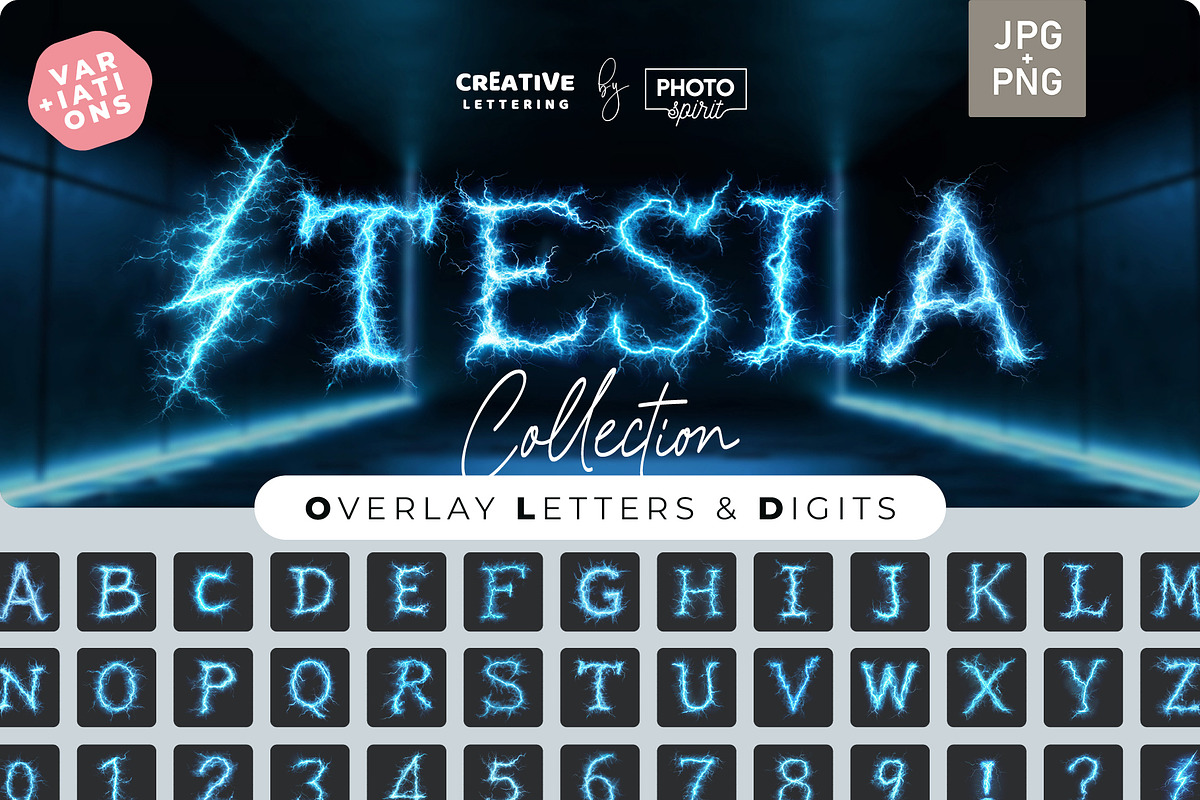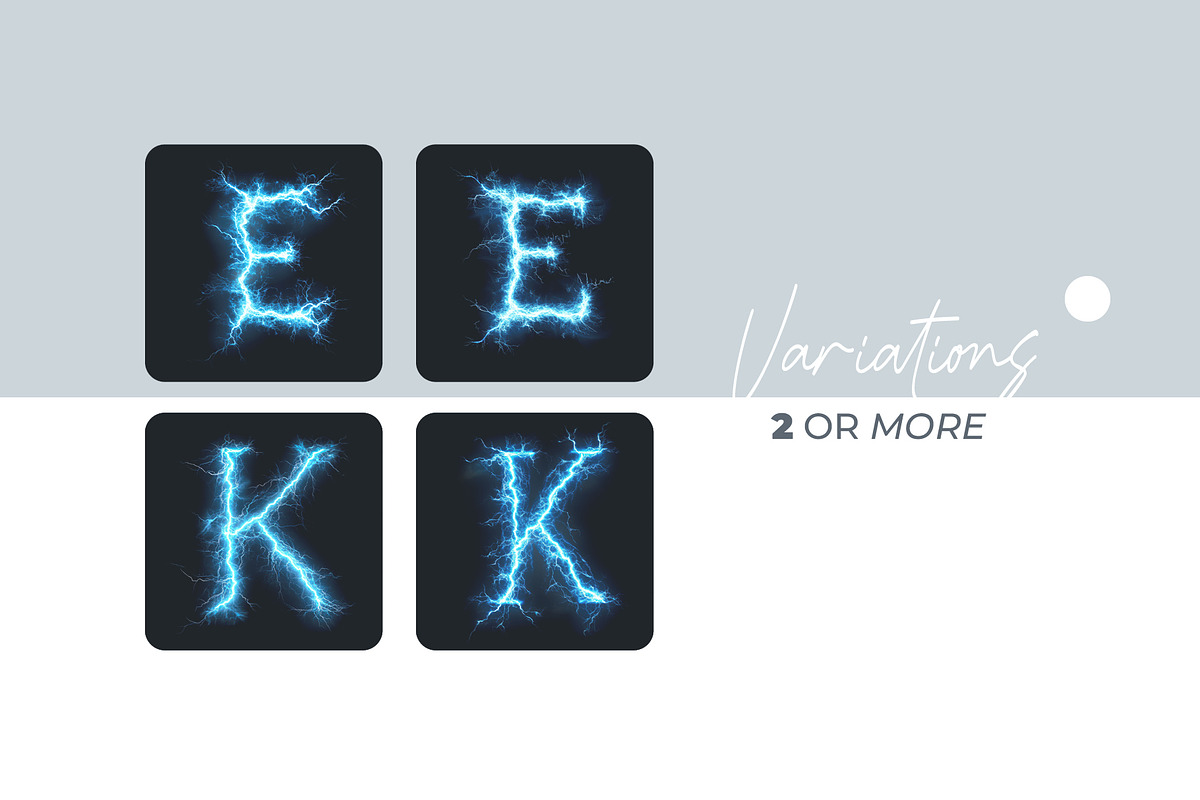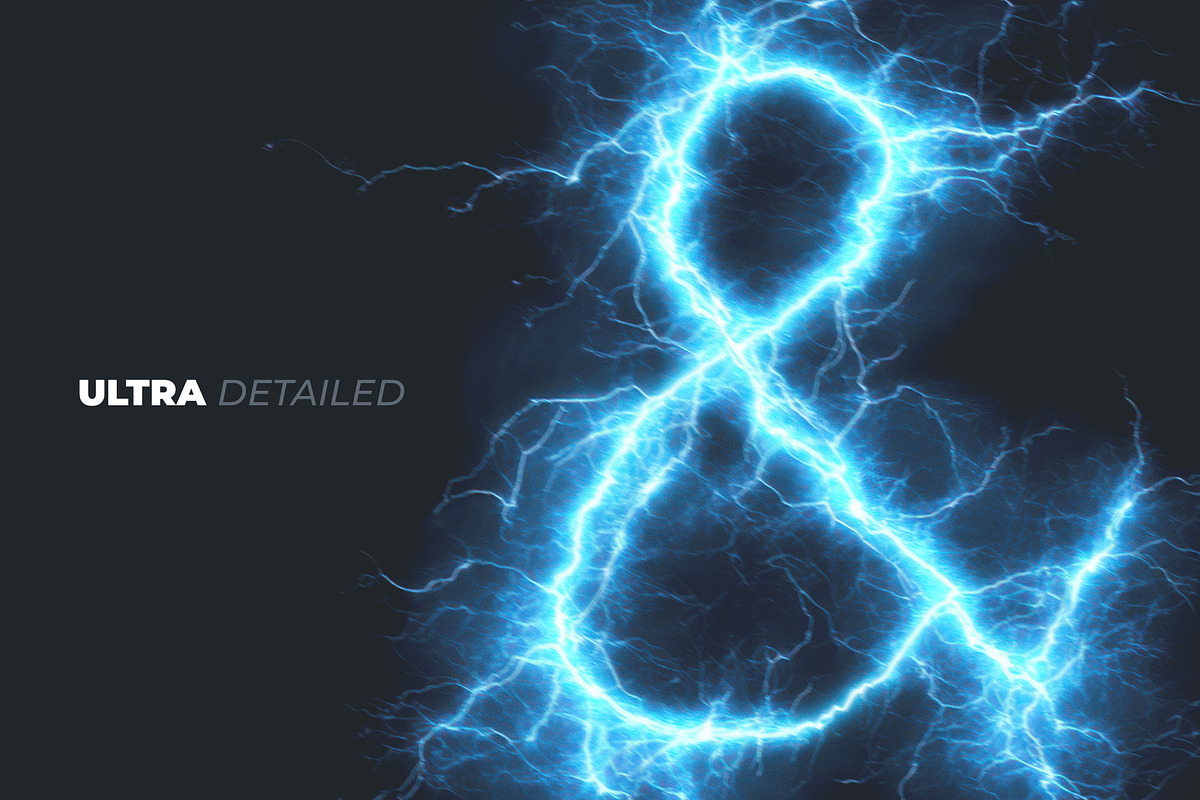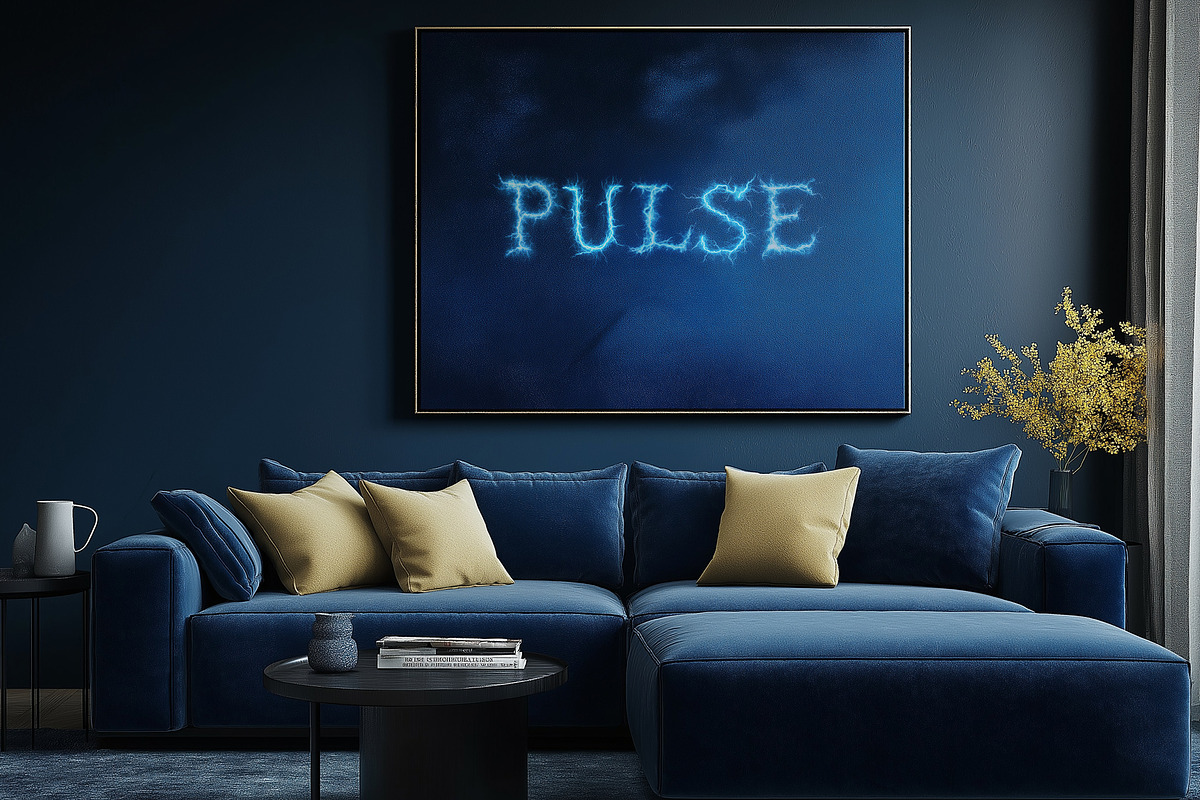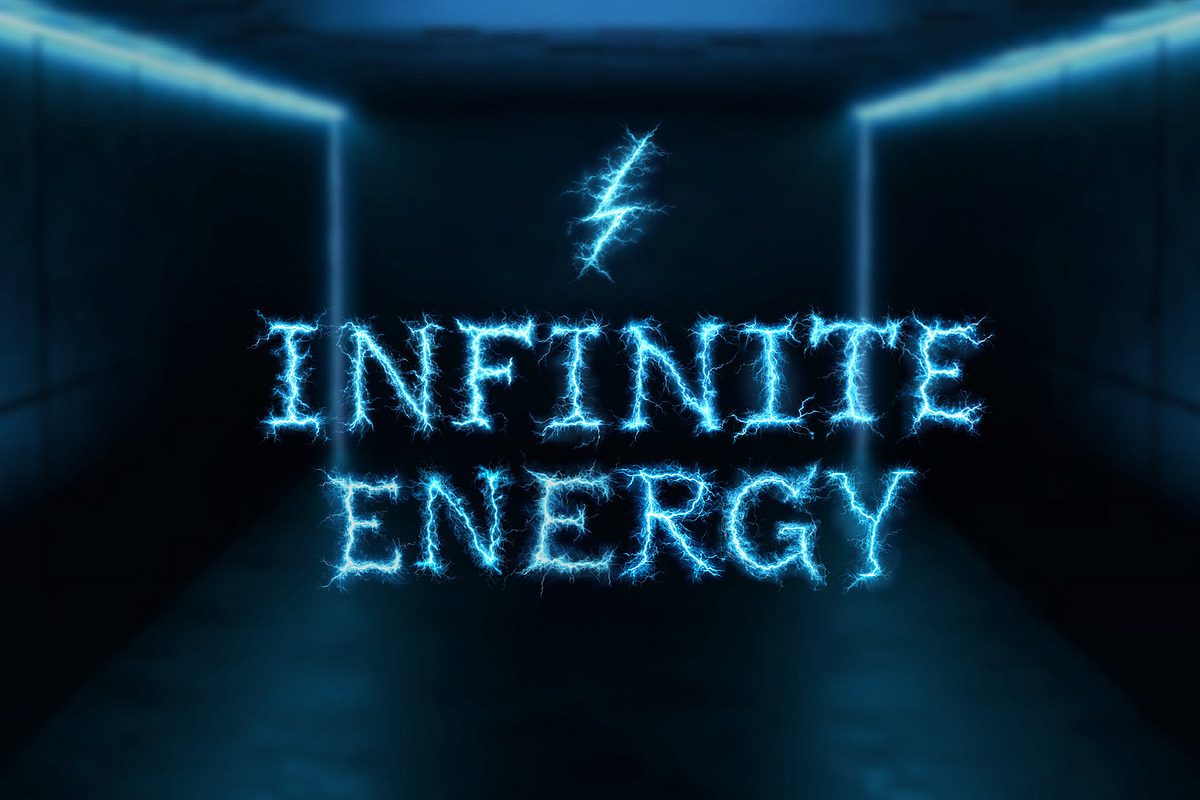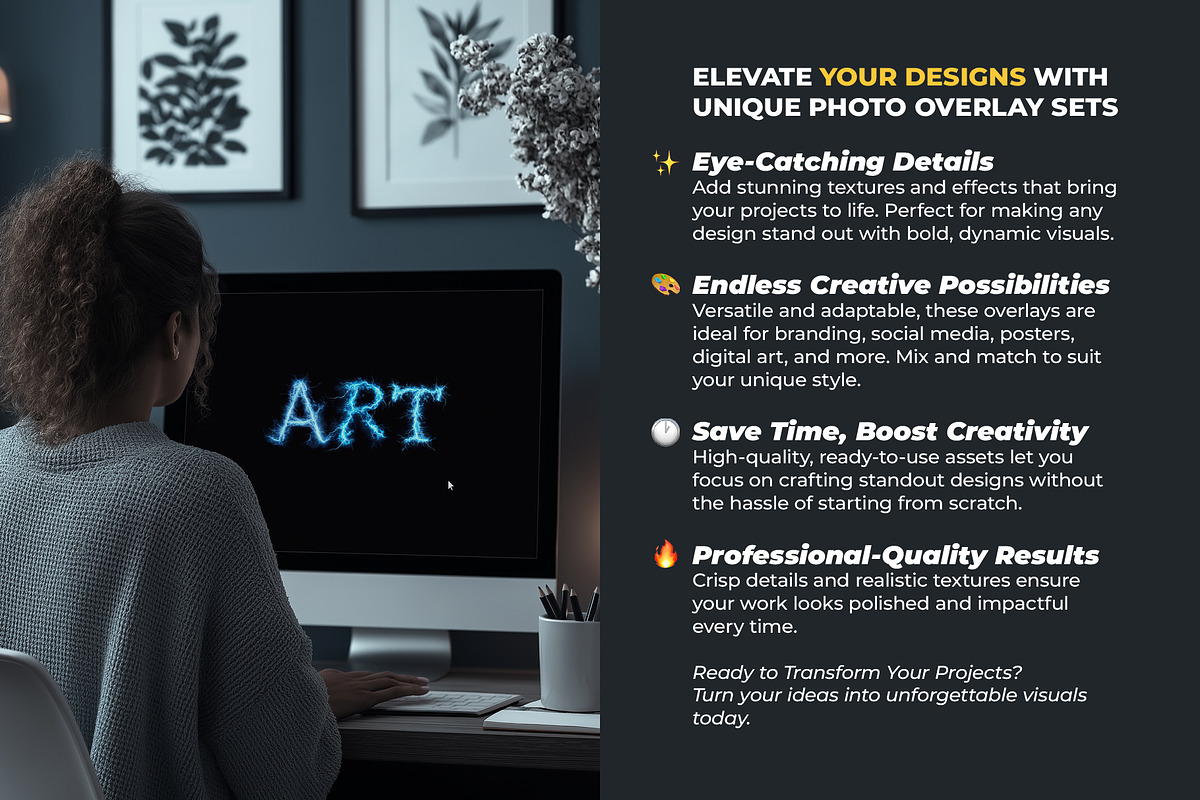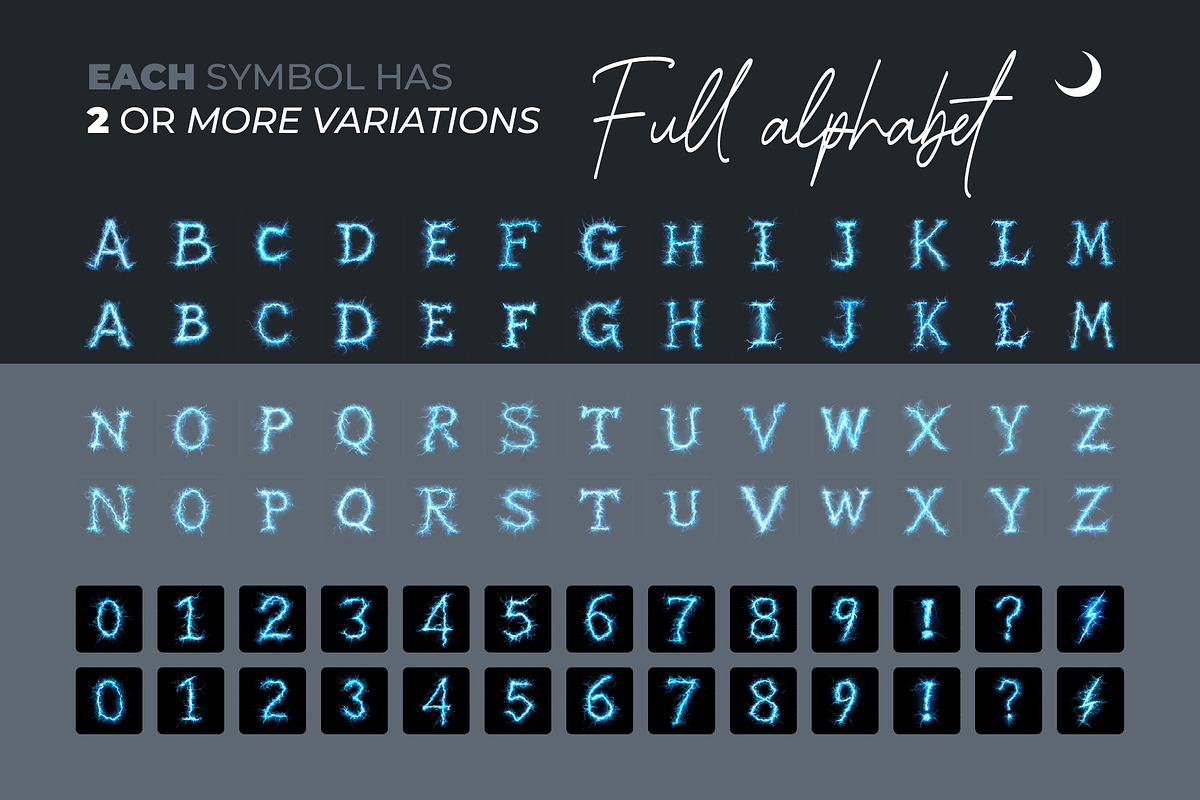
Tesla Coil Lightning Letters Overlay
Electrify Your Designs with Tesla Coil Lightning Letters Overlays ⚡
Unleash high-voltage creativity with Tesla Coil Lightning Letters Overlays, a striking collection of typography infused with realistic, electrifying lightning effects. Designed to capture the raw power of electric arcs, neon glows, and crackling energy, this set transforms your text into a futuristic, high-voltage masterpiece.
Perfect for tech branding, sci-fi artwork, gaming visuals, music covers, event promotions, and cyberpunk designs, these overlays add a bold, electrified aesthetic to your projects. Each letter is carefully designed with natural lightning bolts, glowing plasma textures, and intense energy bursts, making your typography look like it’s surging with raw electrical power.
⚡ Key Features:
✅ Complete Alphabet & Symbols – Includes uppercase letters, numbers, and essential punctuation.
✅ Multiple Lightning Variations – 2–5 unique bolt styles per letter for dynamic effects.
✅ Realistic Electric Effects – Authentic lightning arcs, energy pulses, and plasma glows.